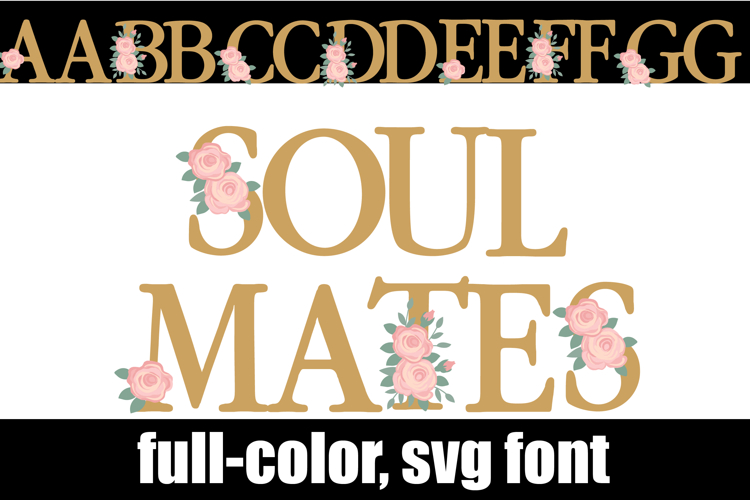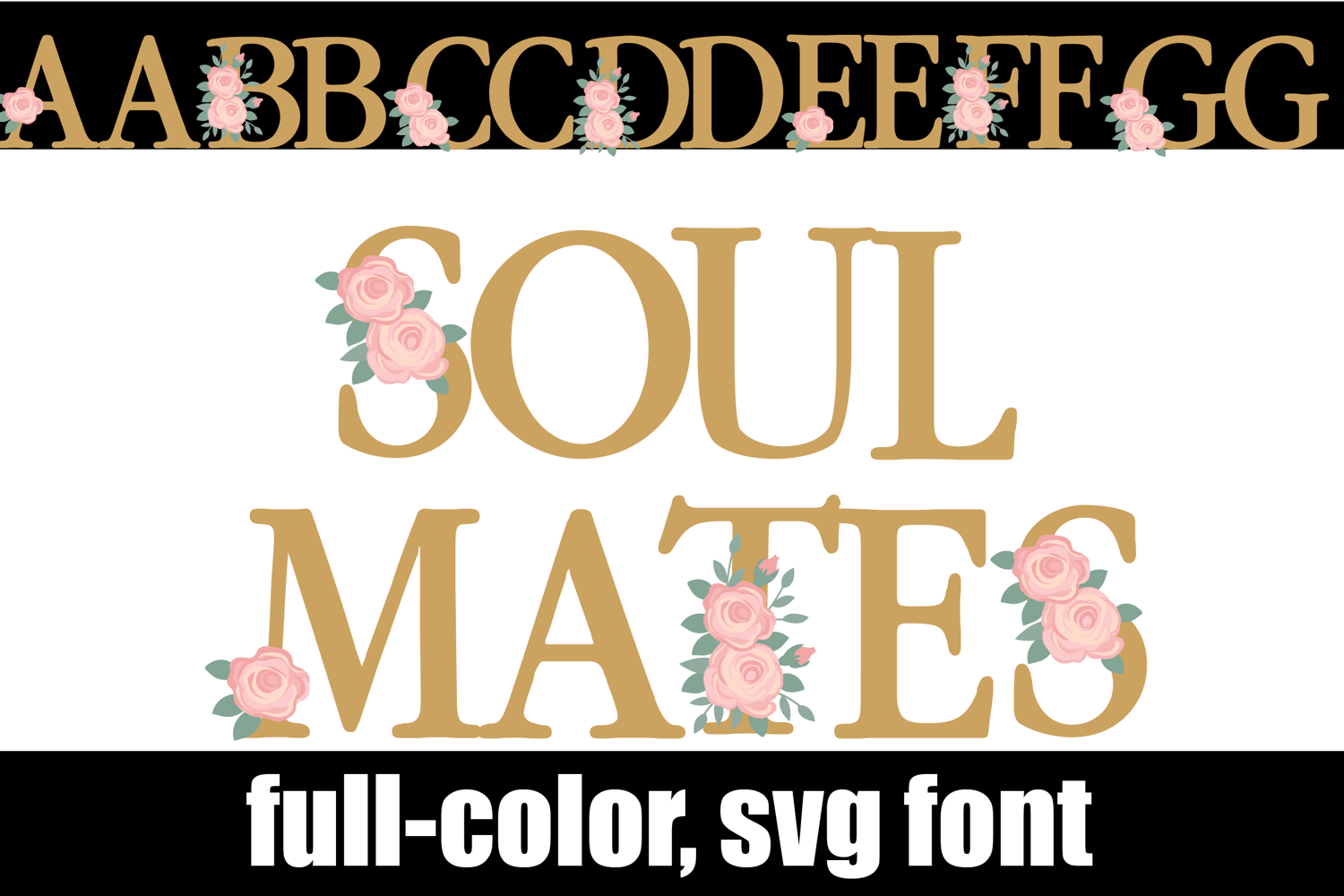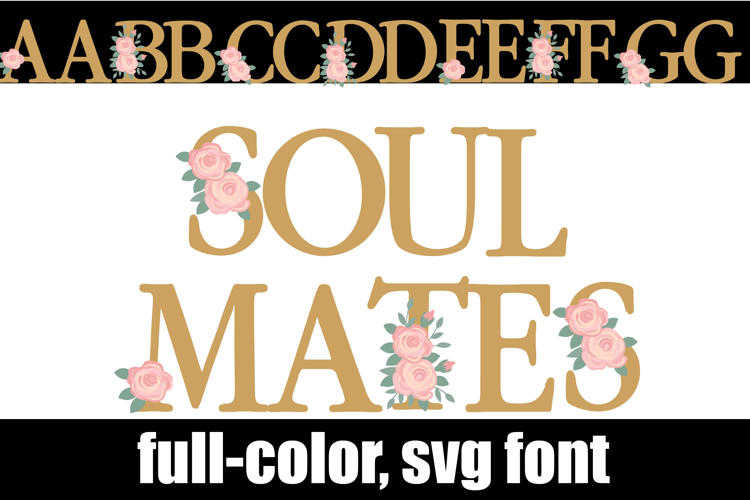
Soul Mates Color Font
This full-color, serif font sports pink roses throughout. There is an alt case of additional colors of each letter that you can access through your system's character map.